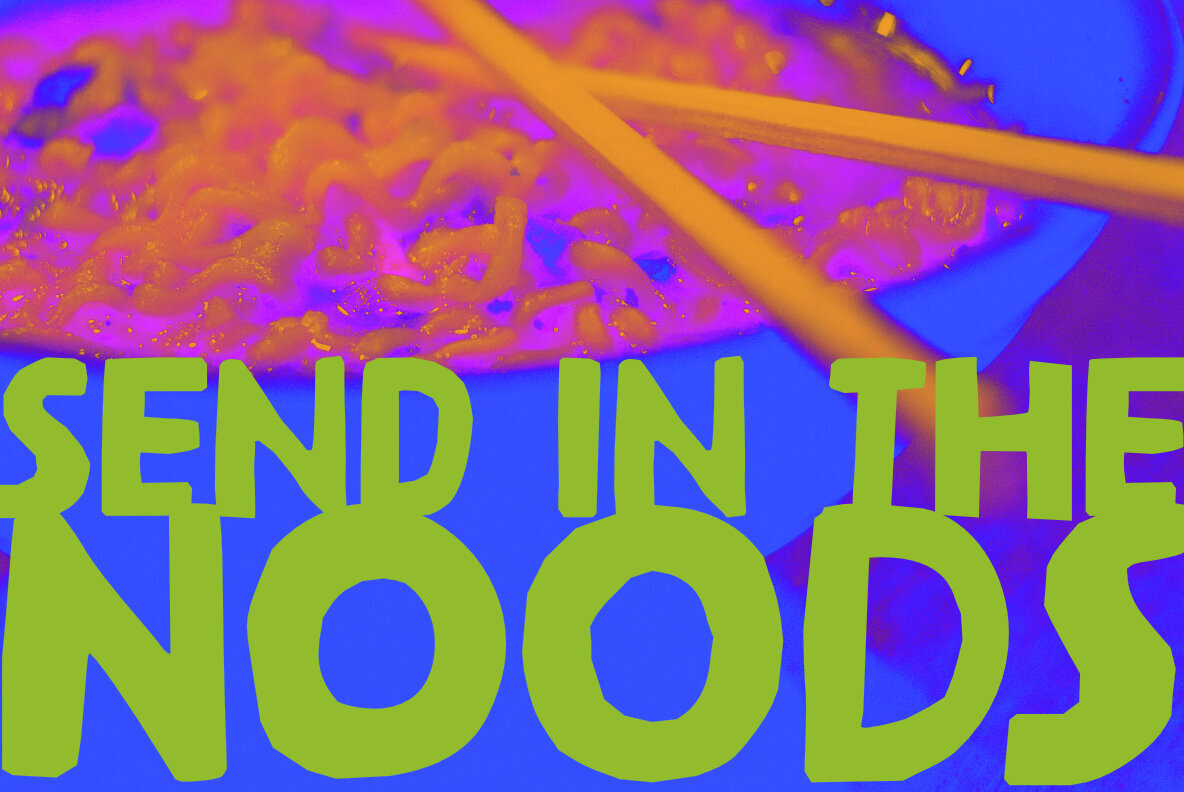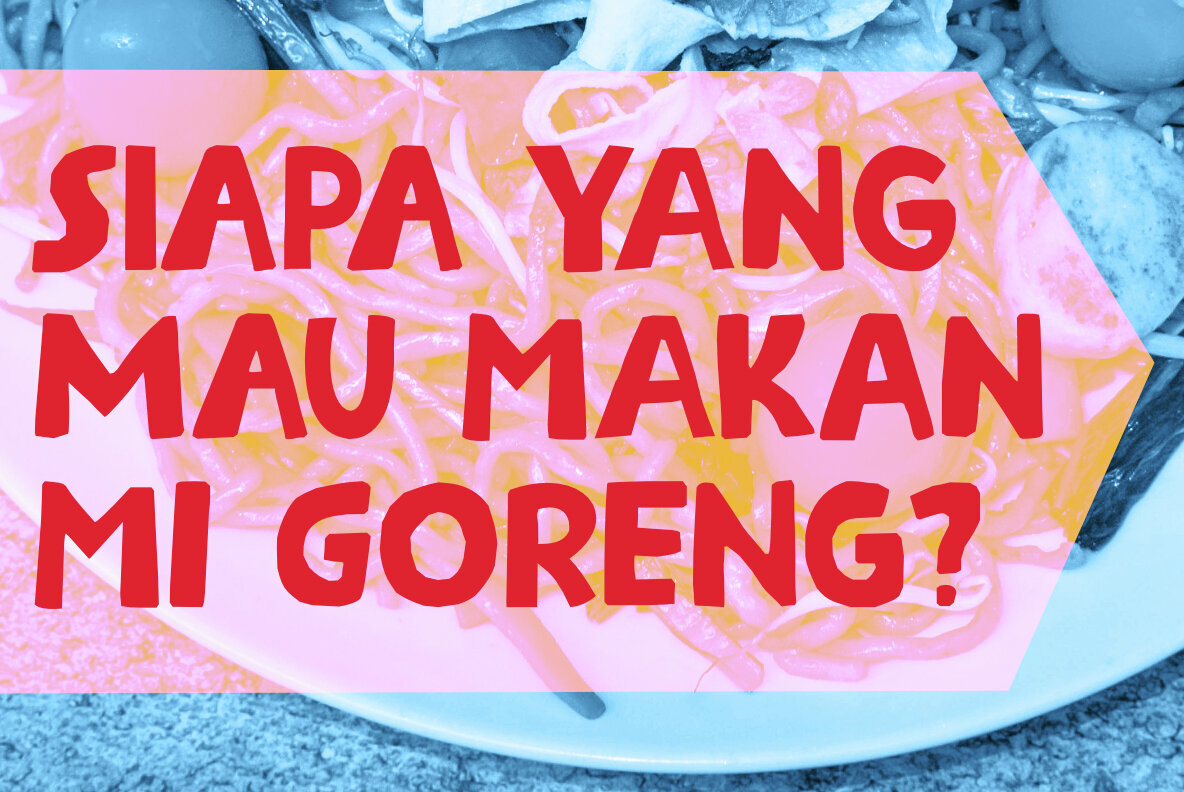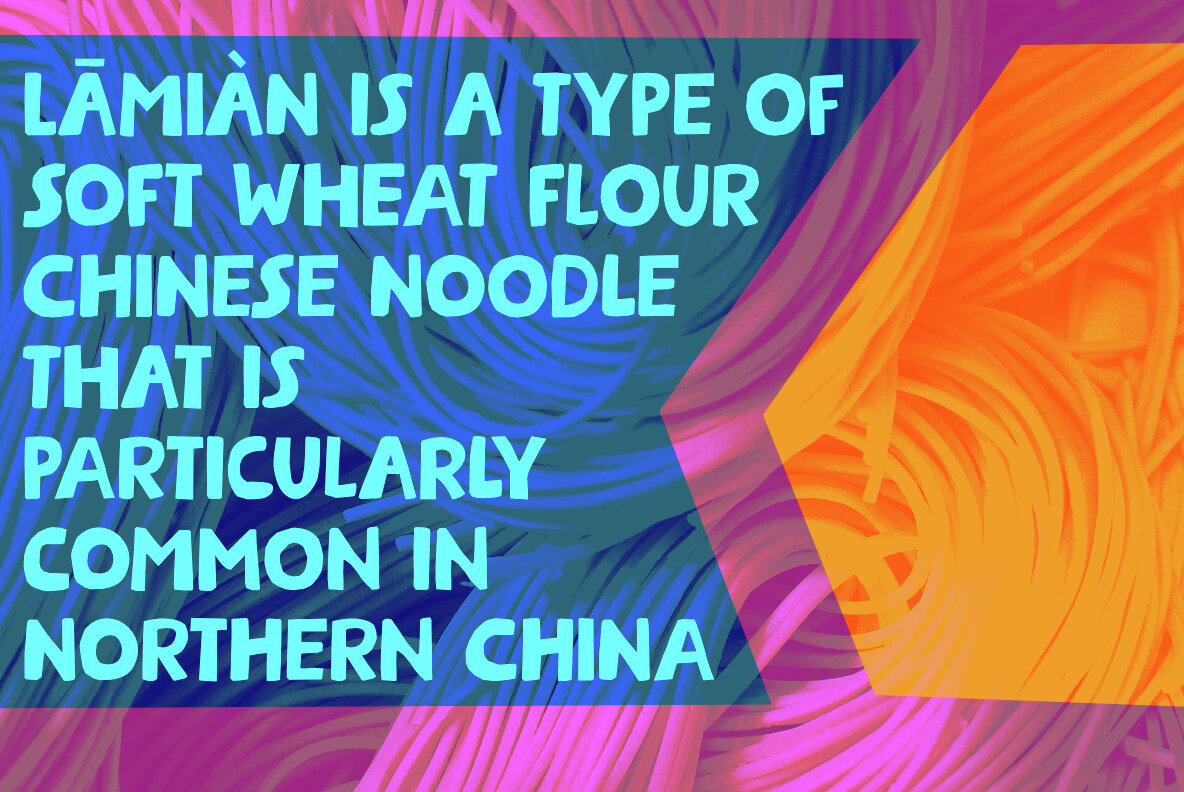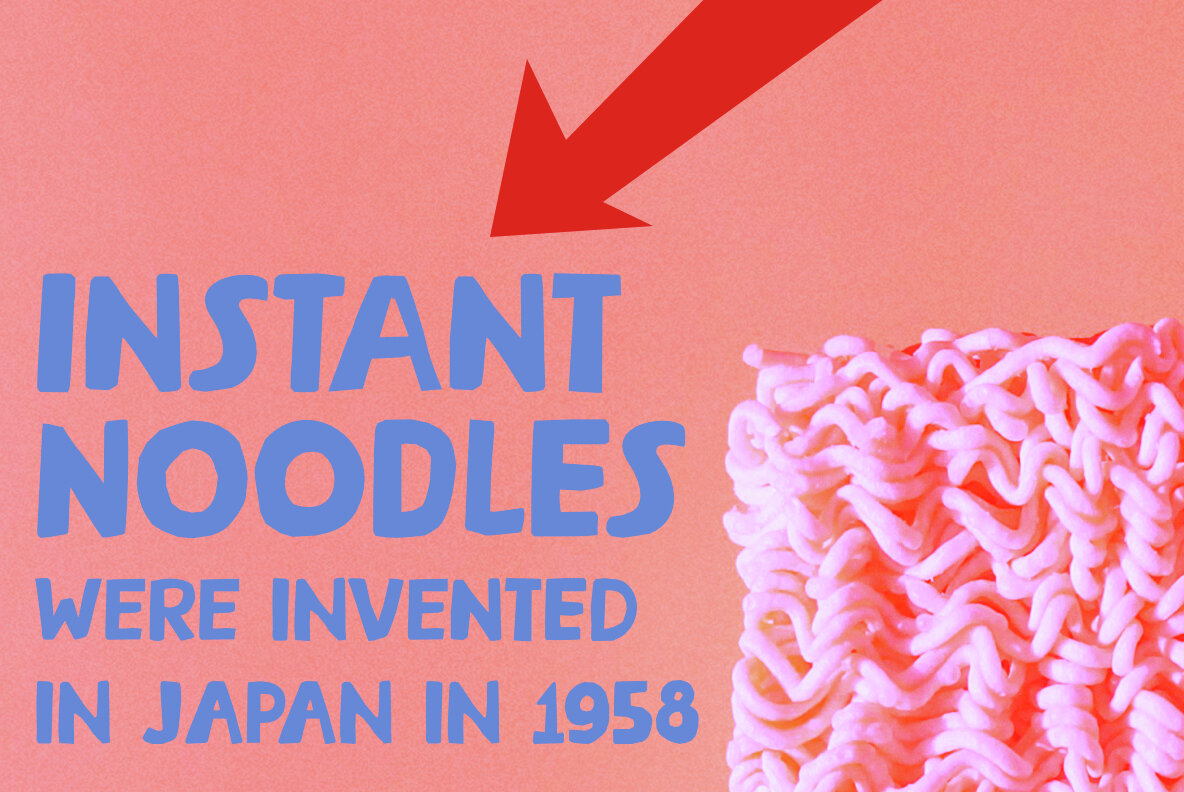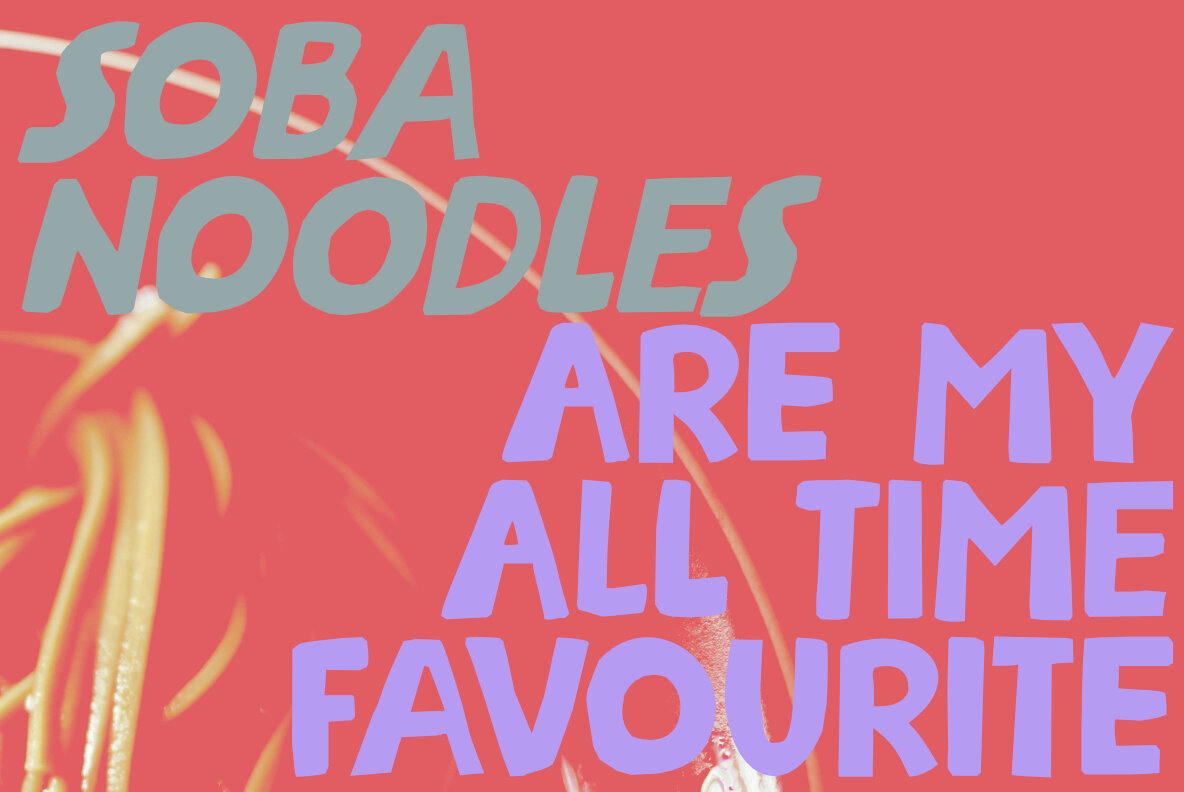
Steaming Noodles Font
Steaming Noodles captures the essence of Japanese culinary delight with a playful yet sophisticated design. This font brings a touch of authenticity and charm to any project, making it perfect for menu designs, restaurant branding, or any creative endeavor that requires a hint of cultural flair. The fluidity and rhythm of the characters mimic the comforting and inviting nature of a hot bowl of noodles.
This typeface offers extensive language support and features a versatile set of contextual alternates for lowercase letters, ensuring a seamless and polished look in various languages and applications. Steaming Noodles is an ideal choice for designers seeking to add a unique and friendly twist to their work, whether in print or digital formats.